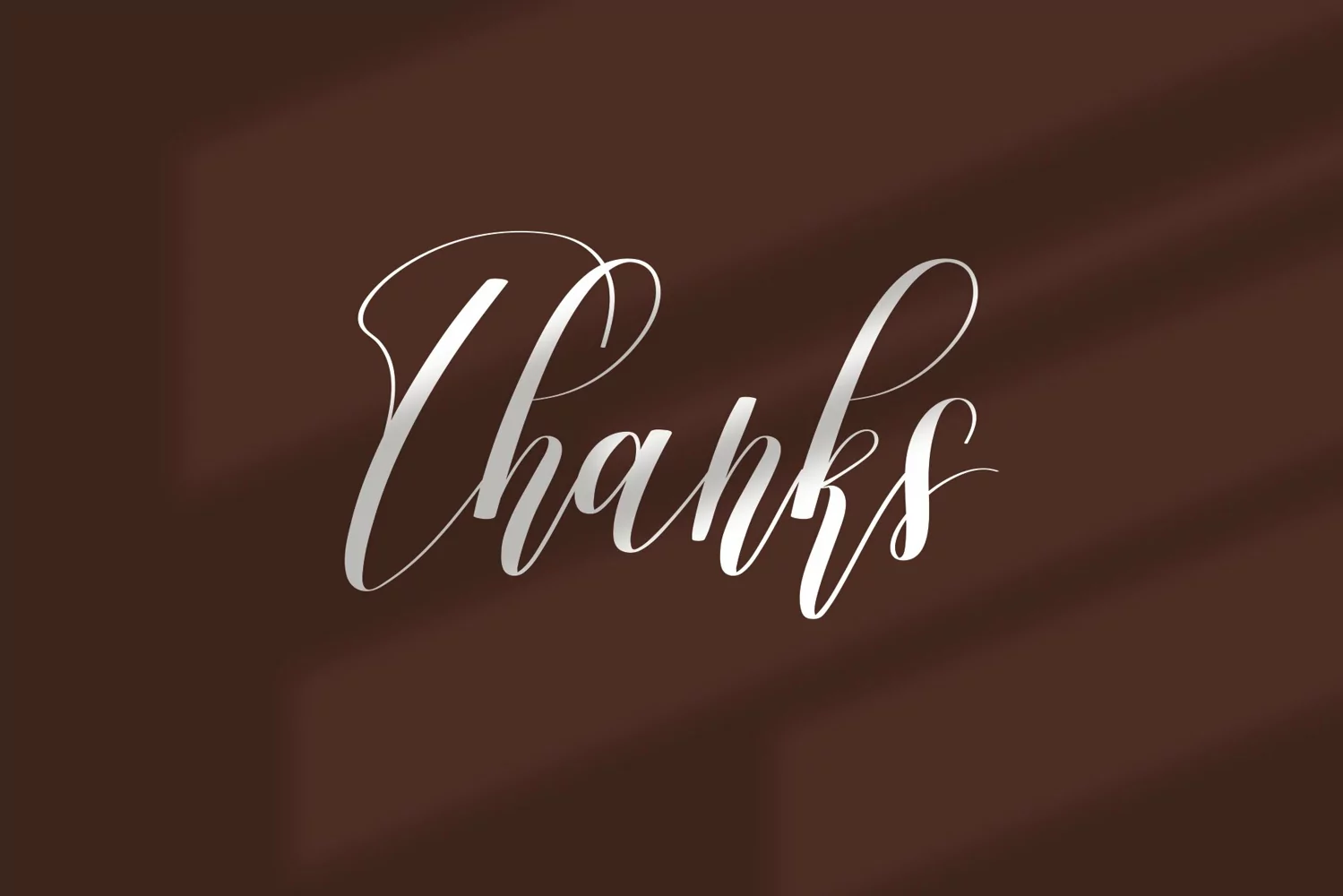
Agatha | Script font
Agatha Font is a popular and professional script font. It is Modern and elegant, this typeface is made of beautiful, creative strokes.